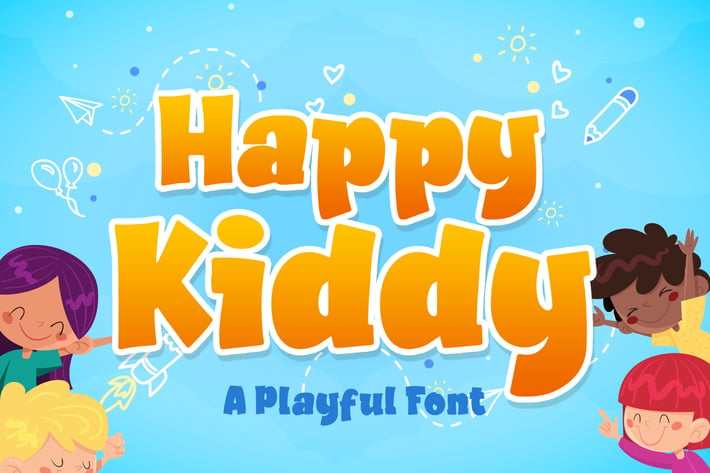
Happy kiddy a Playful Font
Introducing of our new product the name is Happy kiddy a Playful Font inspired by playful kids style this font is a fun theme very good for display, tshirt design, craft, quote sign, logotype and etc
MULTILINGUAL ACCENT :
ØÆøæ¢ÐŒœÁĂÂÀÄĄÅÃǼĆČÇĈĊĎÉĔĚÊËĖÈĘĞĜĢĠĤÍĬÎÏİÌĮĨĴĶĹĽĻĿŃŇŅÑÓŎÔÖÒŐǾÕŔŘŖŚŠŞŜȘŤŢÚŬÛÜÙŰŲŮŨẂŴẄẀÝŶŸỲŹŽŻáăâäàąåãǽćčçĉċďéĕěêëėèęğĝģġĥíîïìįĩĵķĺľļŀńʼnňņñóŏôöòőǿõŕřŗśšşŝșťţŭûüűùųůũẃŵẅẁýŷÿỳźžż